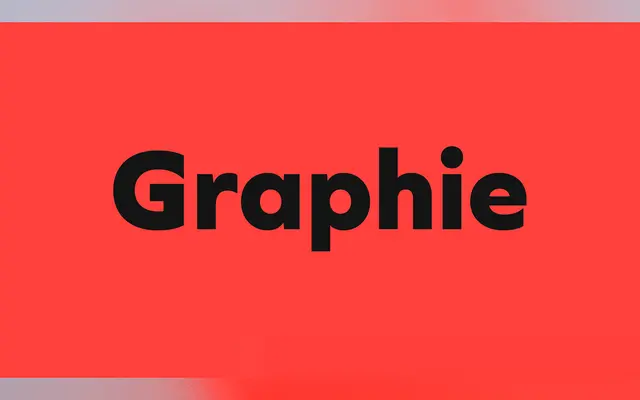
Graphie
A geometric sans-serif by Ryoichi Tsunekawa with a large x-height and sharp geometry across eight weights with matching italics.
Sixteen styles span eight weights from Thin to ExtraBold, each paired with an italic, giving solid coverage for both display and body work. Sharp corners and crisp straight lines sit alongside optical corrections, keeping the family clean without becoming mechanical. European language support covers Western, Central and South Eastern European scripts including Afrikaans, and OpenType features include fractions, superior and inferior figures.
Built on a geometric foundation with sharp corners, crisp straight lines and a large x-height, placing it firmly in the geometric sans-serif tradition with optical corrections applied for refinement.